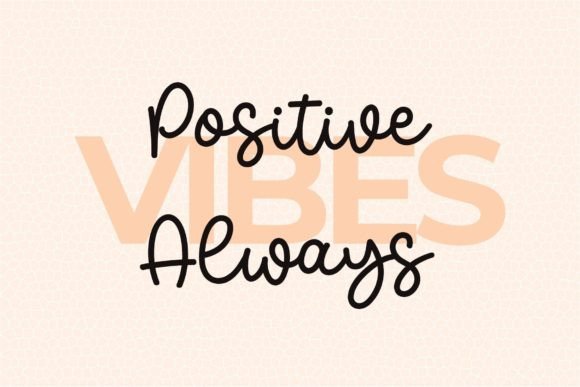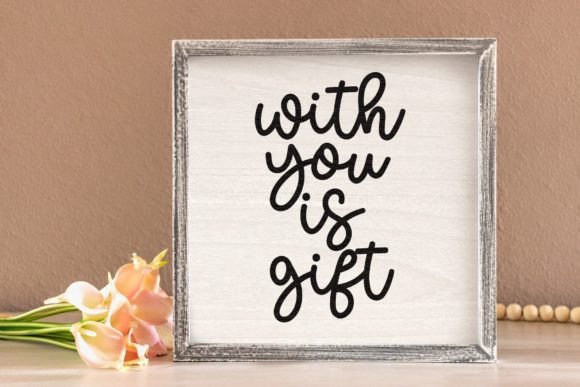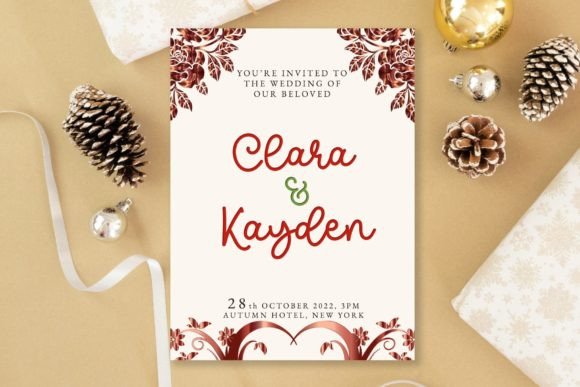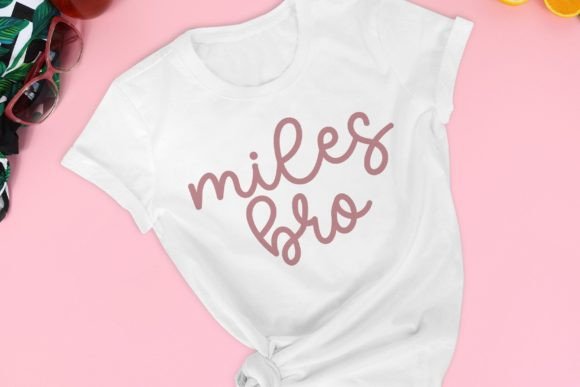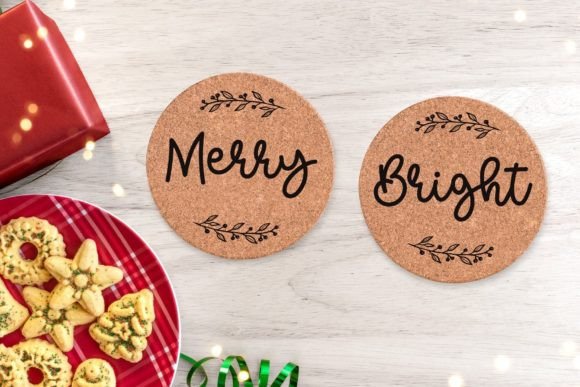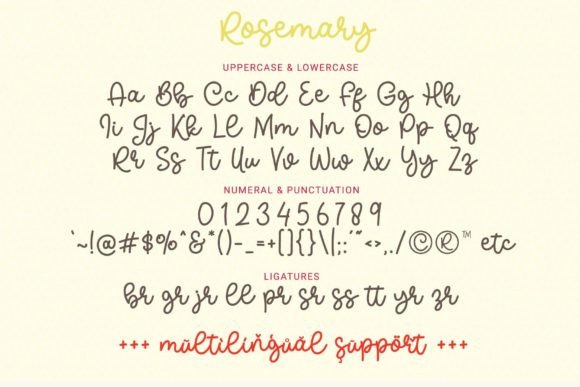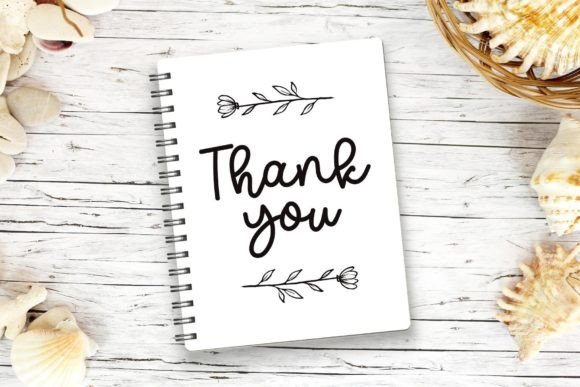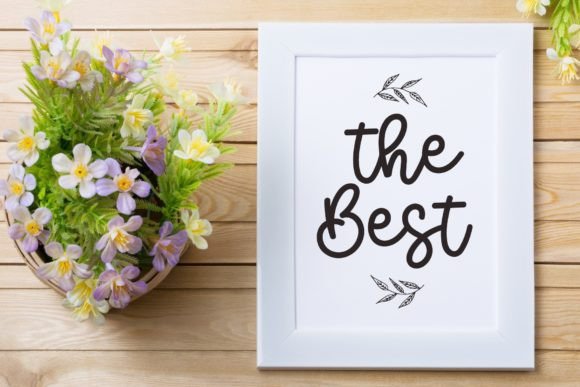
Rosemary is a delightful and versatile script font that exudes a playful charm with its bouncy, simple, and cute design. Its inherent simplicity makes it a perfect choice for a diverse array of design projects, especially those that require a handwritten and endearing touch. With its approachable and whimsical style, Rosemary brings a sense of warmth and personality to any creative endeavor.
What sets Rosemary apart is its adaptability, making it suitable for a wide range of applications. Whether you’re designing a romantic wedding invitation, a trendy t-shirt, engaging crafting projects, adorable stickers, or vibrant sublimation prints, Rosemary effortlessly fits into the creative landscape. Its cute and handwritten aesthetic adds a touch of authenticity, making your designs more relatable and appealing to your audience.
The font’s bouncy nature gives your text a lively and dynamic feel, making it ideal for projects that aim to convey energy and positivity. Its simplicity enhances readability, ensuring that your message is communicated clearly and effectively. Whether you’re crafting personalized items or designing for commercial purposes, Rosemary’s friendly character makes it an excellent choice for creating memorable and visually pleasing designs.
Rosemary’s PUA encoding further enhances its functionality by granting easy access to a variety of glyphs and swashes. This feature allows you to customize your text with delightful embellishments and creative elements, adding a playful flair to your designs. With the convenience of PUA encoding, you can explore endless combinations, giving your projects a unique and personalized touch that sets them apart.
Incorporating Rosemary into your design projects not only adds a cute and handwritten charm but also conveys a sense of authenticity and approachability. Its ability to evoke a warm and friendly atmosphere makes it a favorite among designers and creatives who want to create designs with heart and soul. By choosing Rosemary, you’re selecting a font that radiates joy and creativity, making your projects more engaging and endearing to your audience.
So, whether you’re crafting heartfelt wedding invitations, designing playful t-shirts, creating charming crafting projects, or producing vibrant stickers and sublimation prints, let Rosemary be your go-to font. With its bouncy, simple, and cute character, coupled with the accessibility of glyphs and swashes through PUA encoding, this font empowers you to infuse your designs with personality and creativity. Embrace the cuteness of Rosemary and watch your projects come to life with a delightful and heartfelt touch that captures the hearts of your viewers.